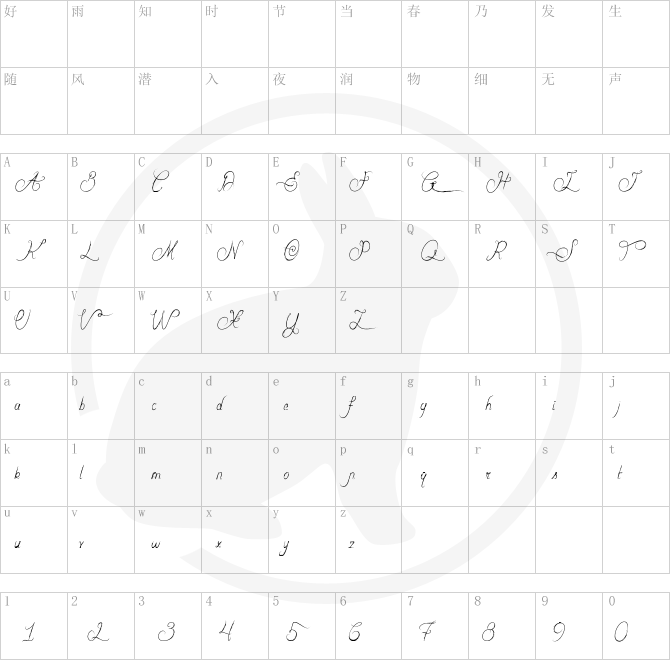
- Font Name:Valentina de Queensland
Valentina-de-Queensland.ttf is a very beautiful artistic font, Valentina-de-Queensland.ttf is widely used in the design and printing of various books and pictures,Valentina-de-Queensland.ttf has a strong visual impact,Valentina-de-Queensland.ttf is a commonly used font in newspapers, magazines and books, and is used in posters, e-commerce Poster design, store design, logo design, font design and other fields.Valentina-de-Queensland.